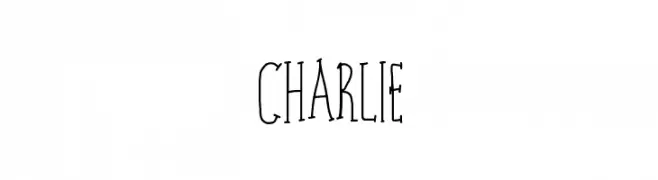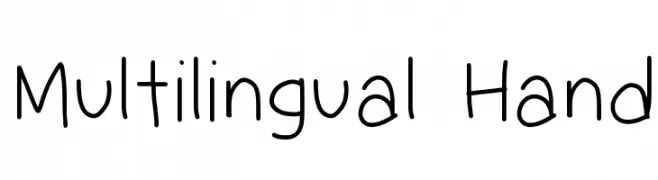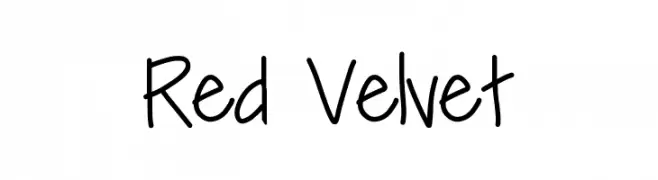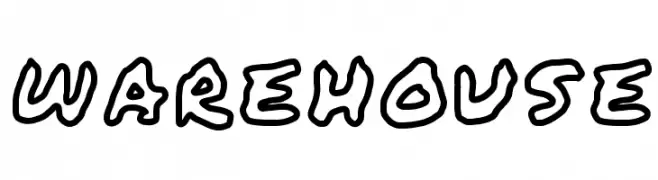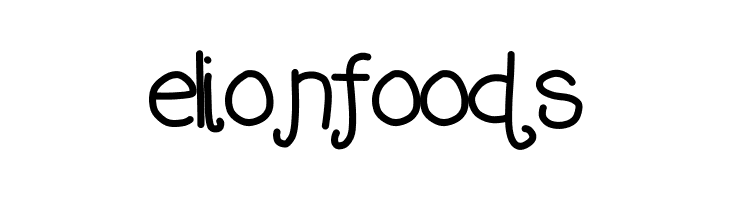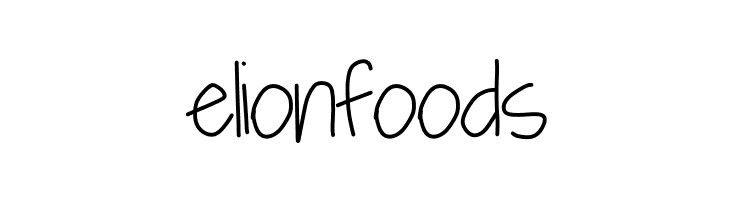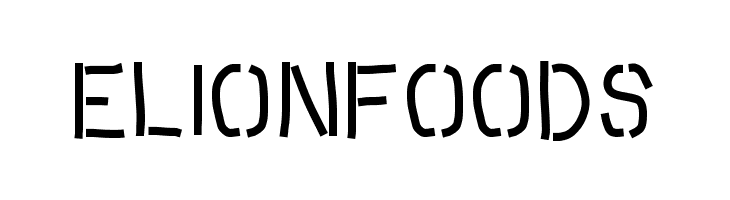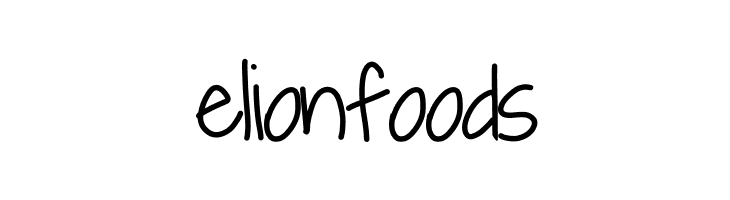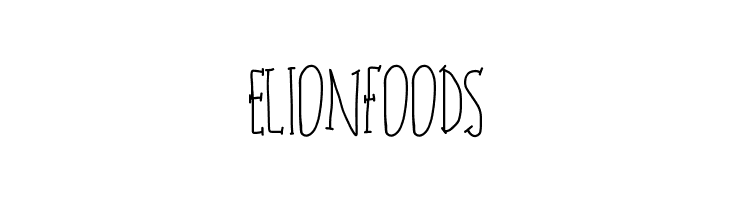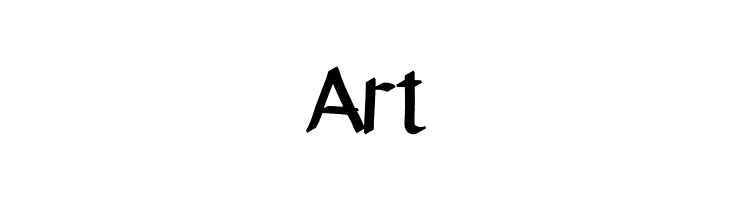
• Multilingual Hand
A playful, handwritten font with a casual and friendly style.
• Ralph
A playful, curly serif font with a whimsical and friendly style.
• Angel
A playful, casual handwritten font with rounded edges and a whimsical style.
• Crossroads
A bold, stencil-like font with geometric cutouts and a modern industrial style.
• Red Velvet
A playful, casual handwritten font with smooth, flowing lines.
• charlie
A whimsical, artistic font with elongated strokes and playful design.
• Anger Management
A playful, informal handwritten font with rounded edges and consistent strokes.
• i do not trust you
A bold, brush-like font with dynamic strokes and a playful, artistic style.
• WAREHOUSE
A bold, playful font with a hand-drawn, casual style.
• BREAK - CHAIN
A playful handwritten font with a casual and friendly style.